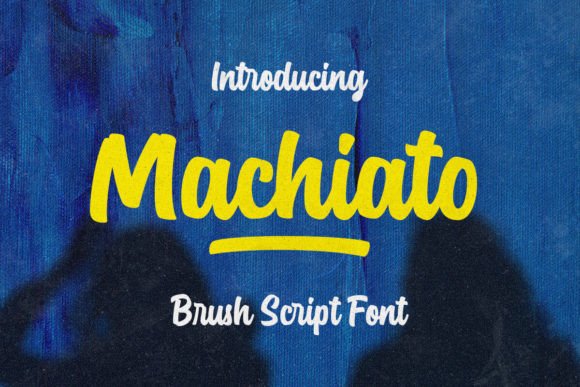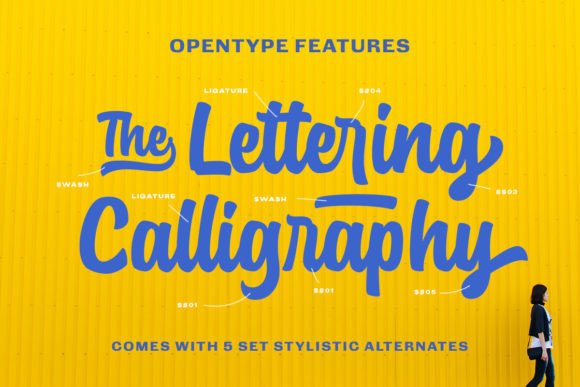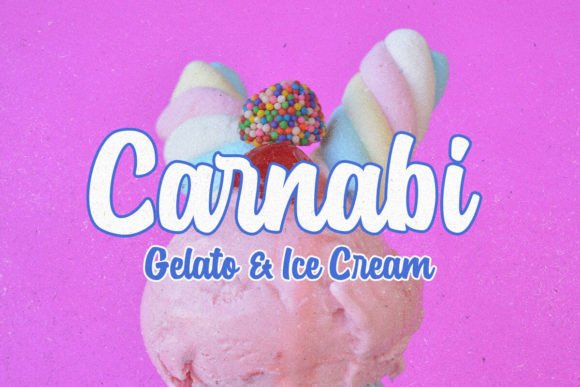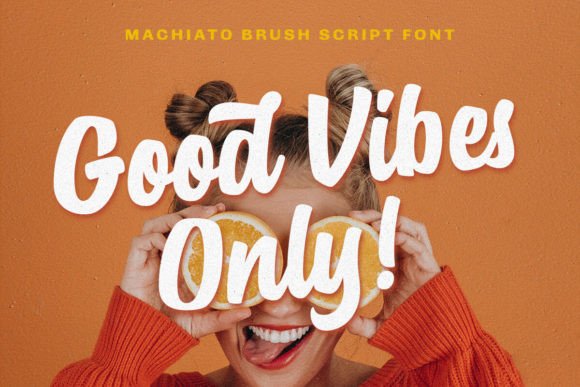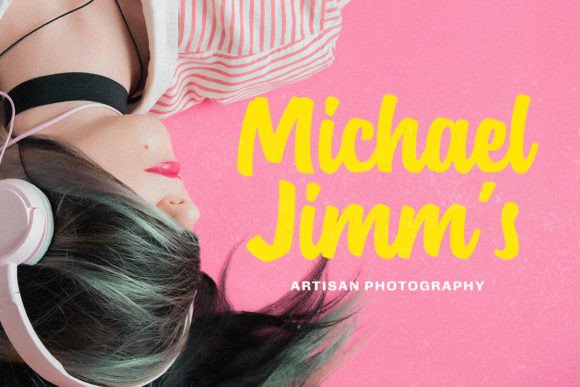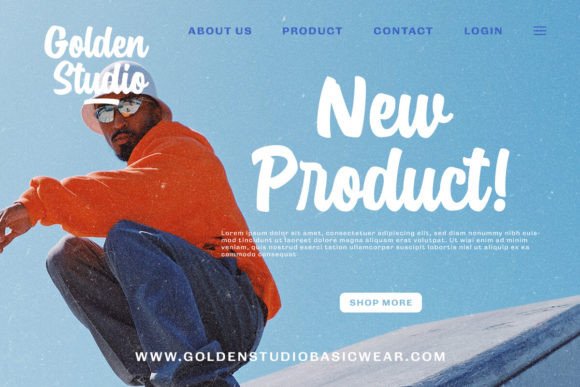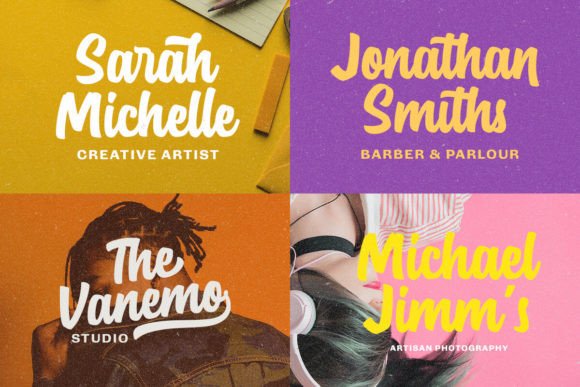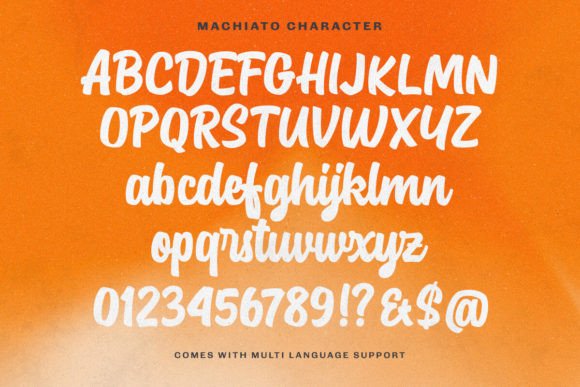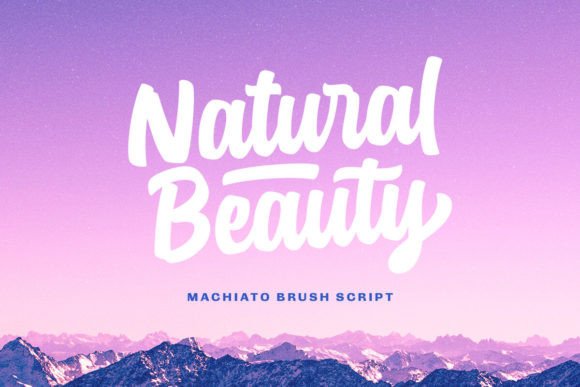
Machianto Font
Machianto is a bold brush script which is purposely made for headline, display or logotype and the other various formal forms such as invitations, labels, logos, magazines, books, greeting / wedding cards, packaging, fashion, make up, stationery, novels, labels or any type of advertising purpose.